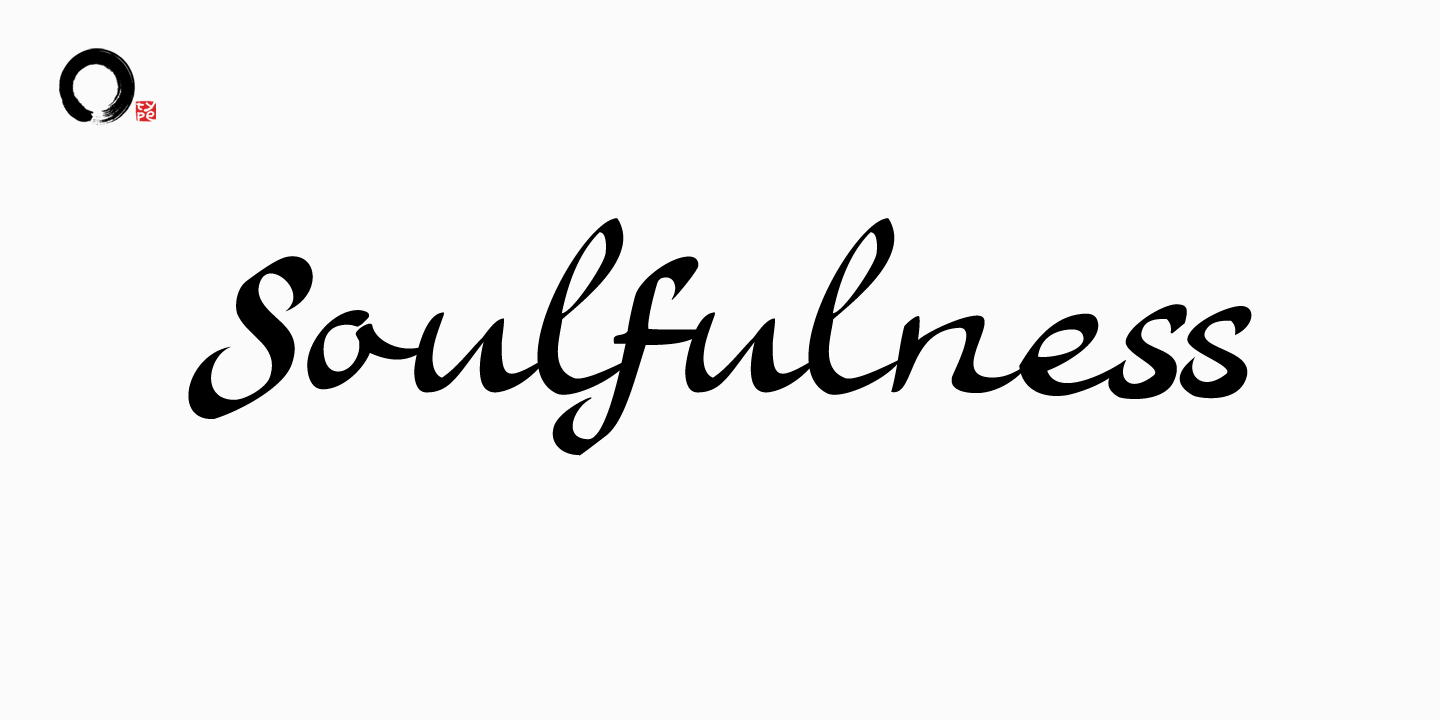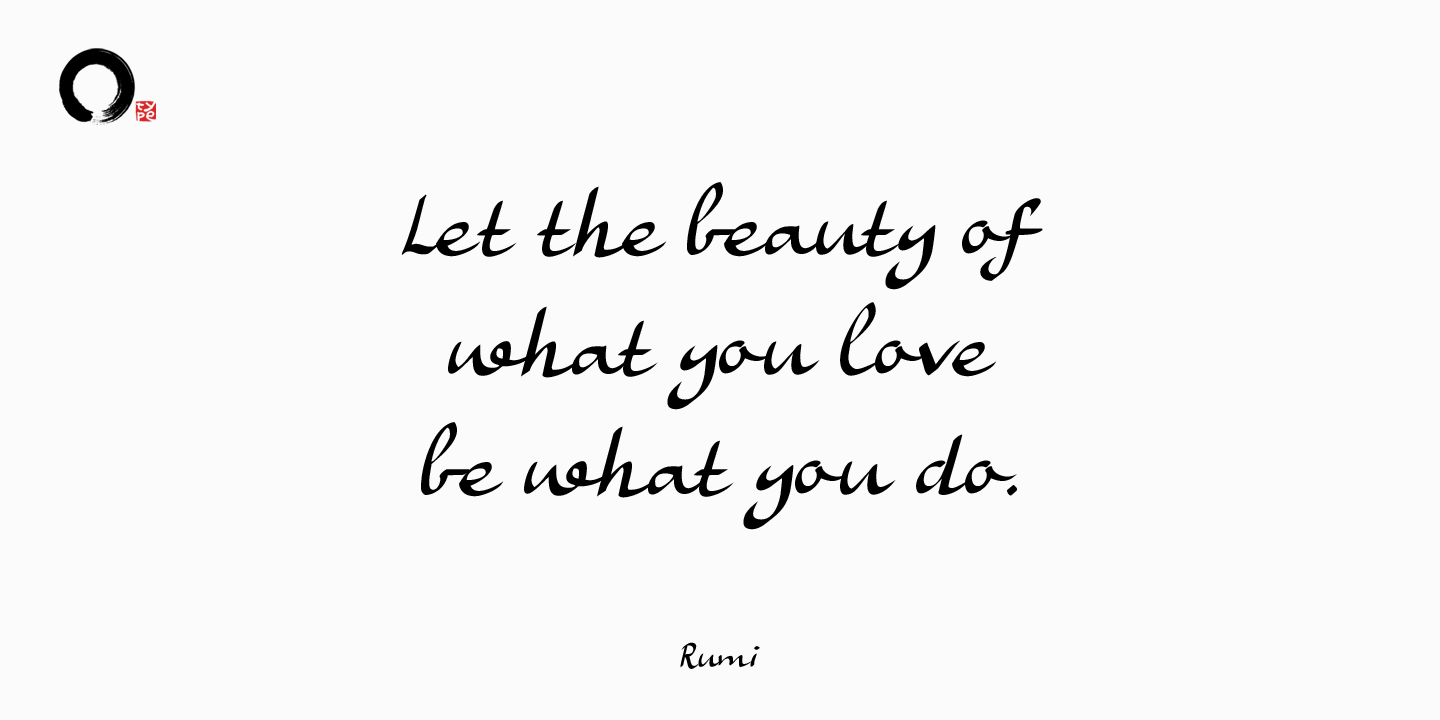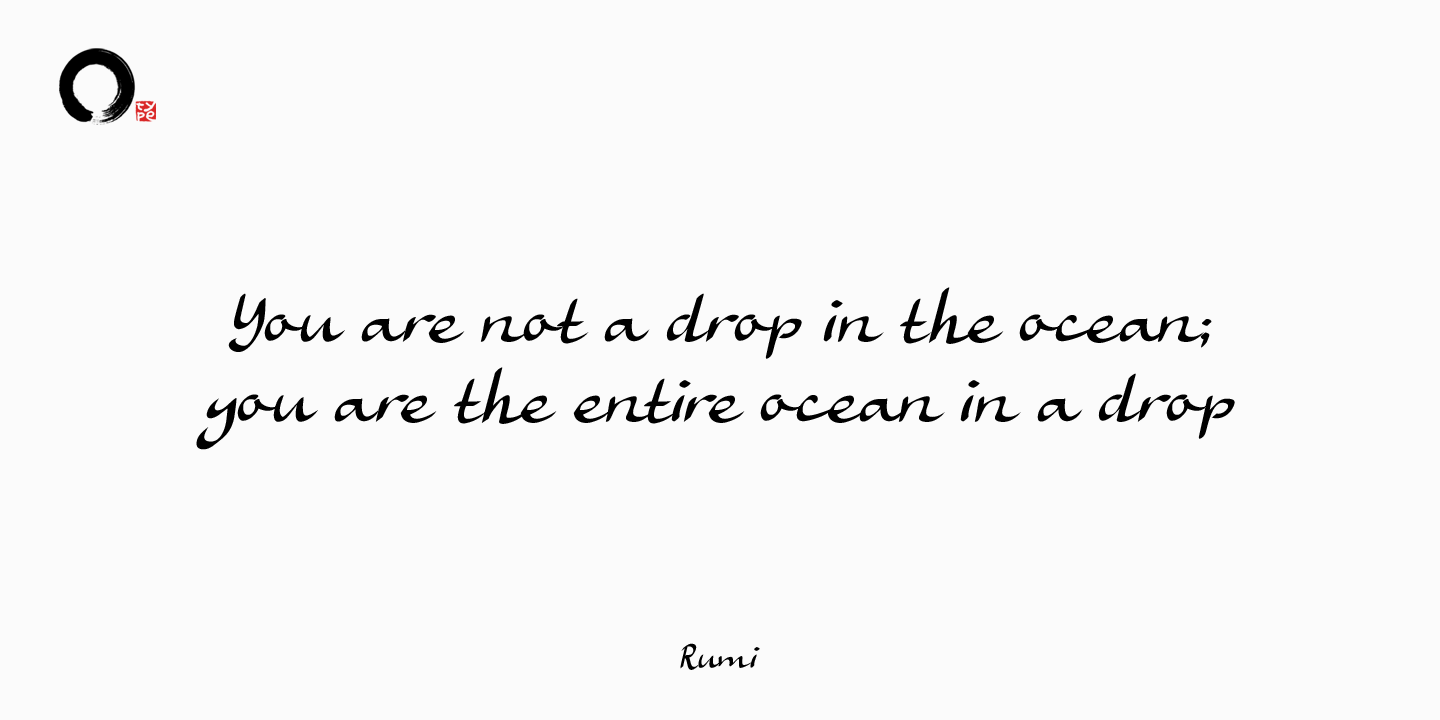
About Ruhaniyat
Ruhaniyat means Soulfulness. Ruhaniyat font is a handmade calligraphy font with an oriental look. It comes with double letter ligatures and alternates for the z and &.